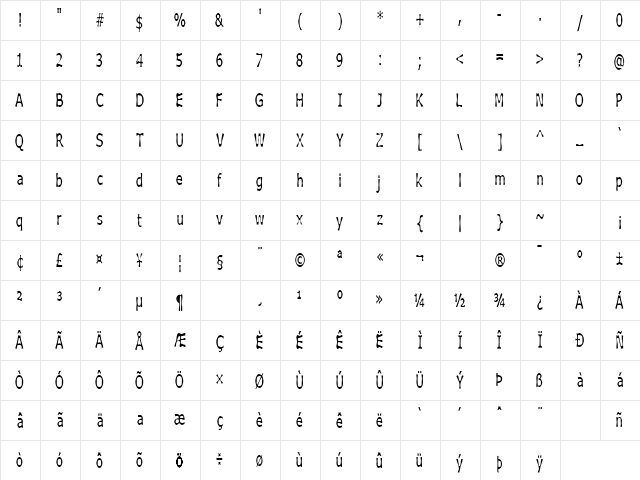
Boneribbon Tall Regular Font Preview
Boneribbon Tall Regular
Design Context for Boneribbon Tall Typeface
Boneribbon Tall offers clean, dependable letterforms without strong stylistic allegiance, making it a practical choice for designers who need flexibility.